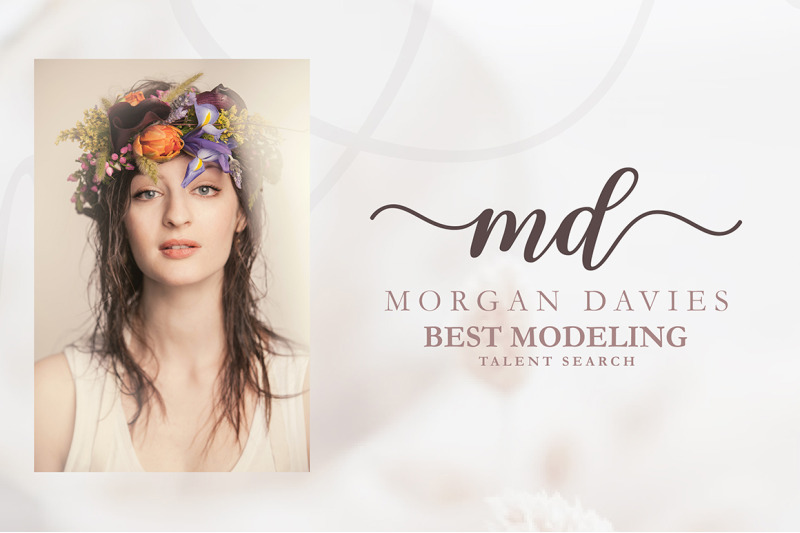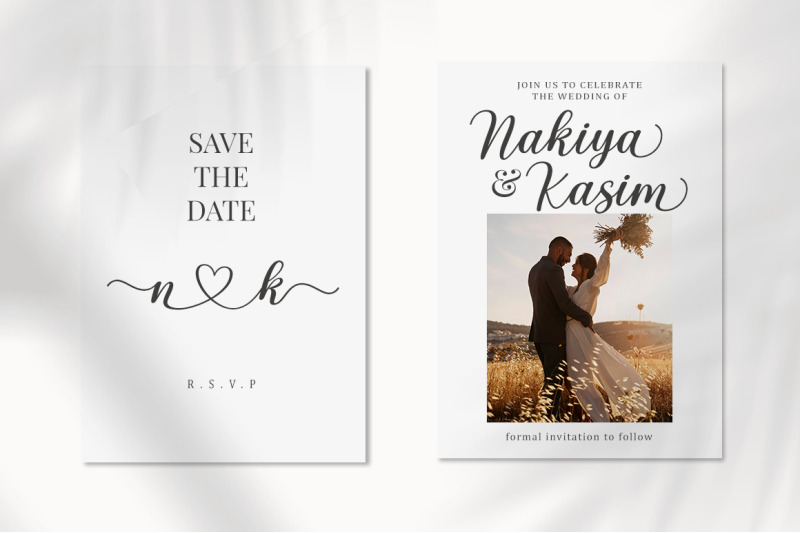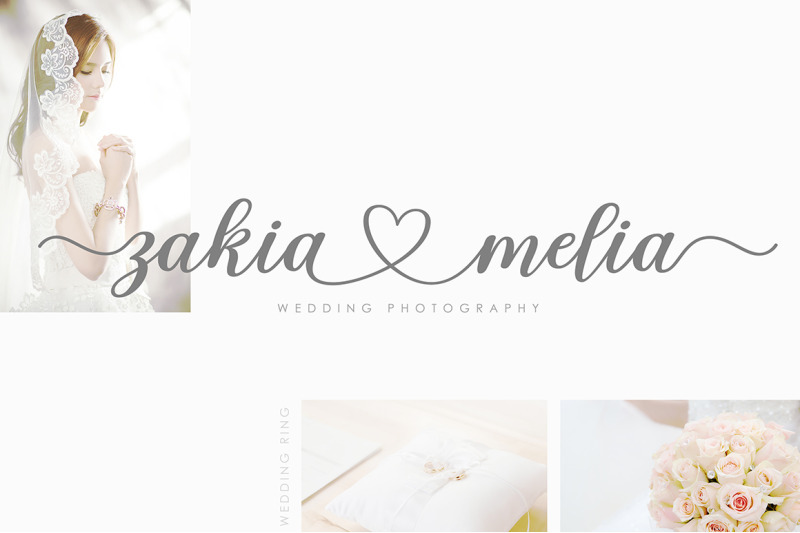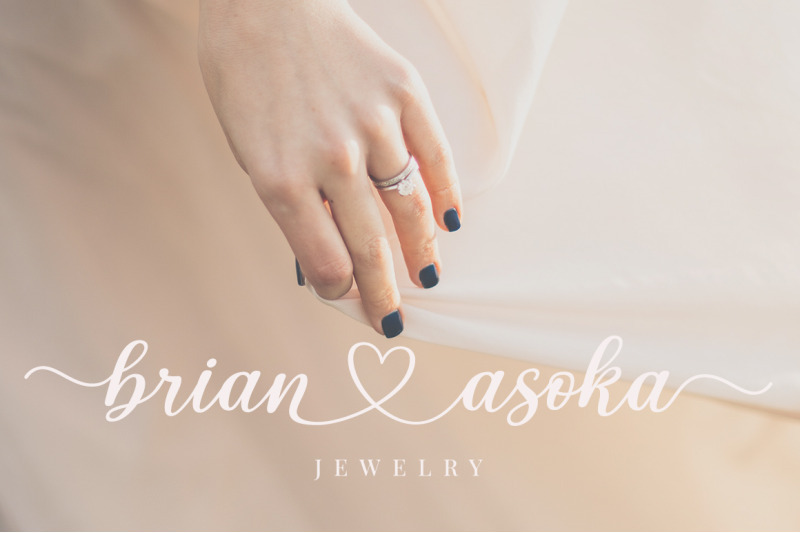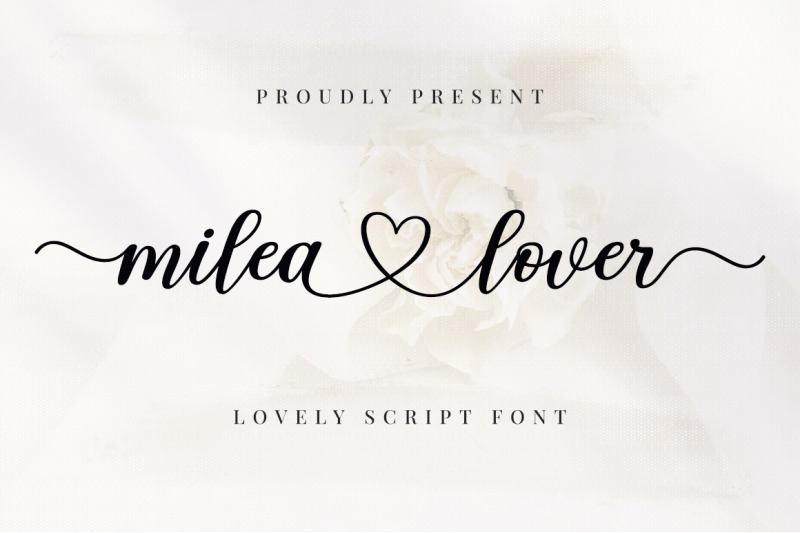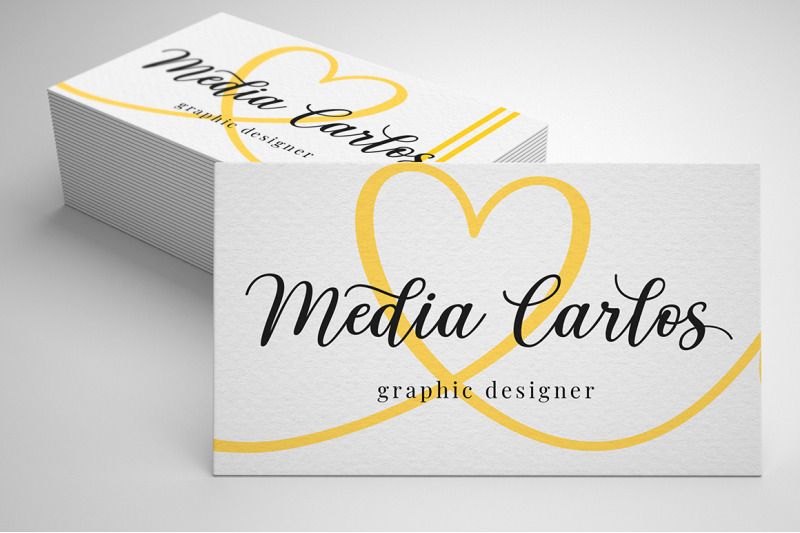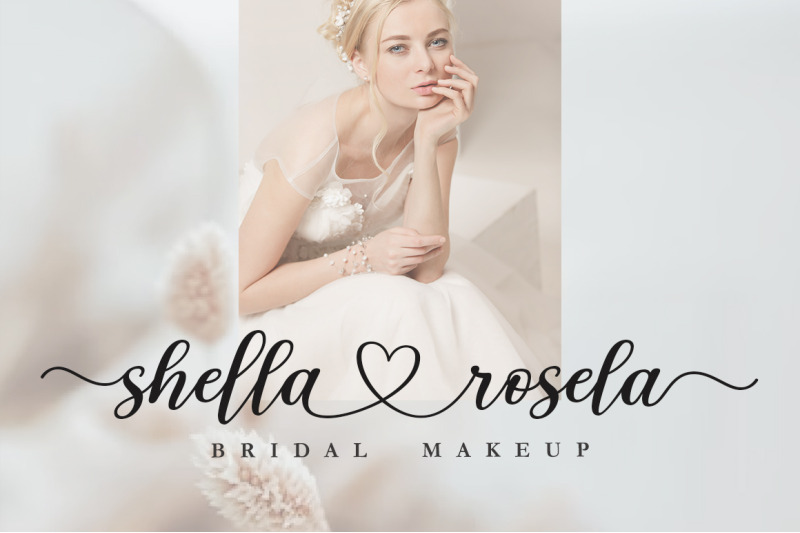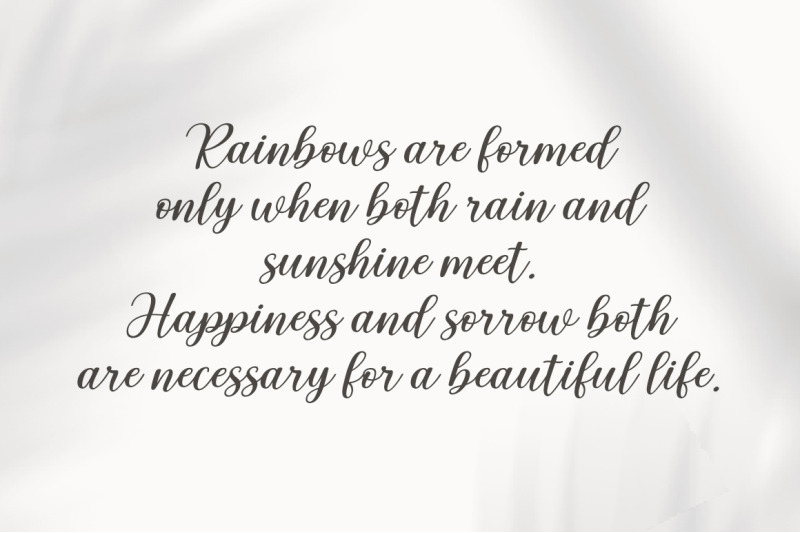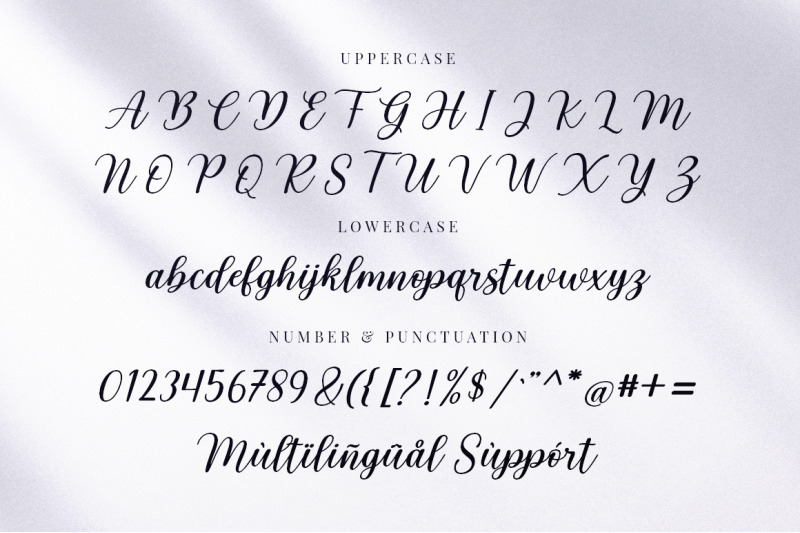
Hi There ! Milea Lover Font by MegaType.This font is in OTF, TTF file. Milea Lover Font is a beautiful script font with an irregular baseline perfect for branding, logo, wedding invitations, greeting cards, fashion, book covers, posters, labels, quotes and other romantic projects .Happy Designing !